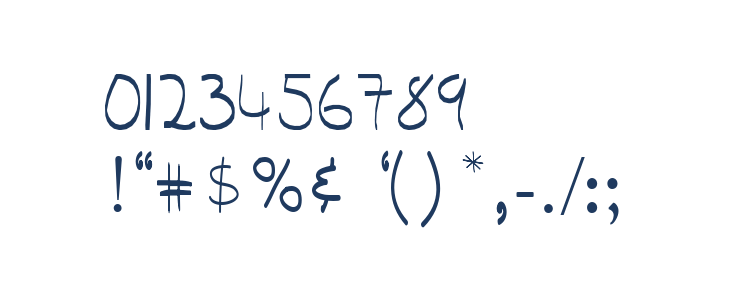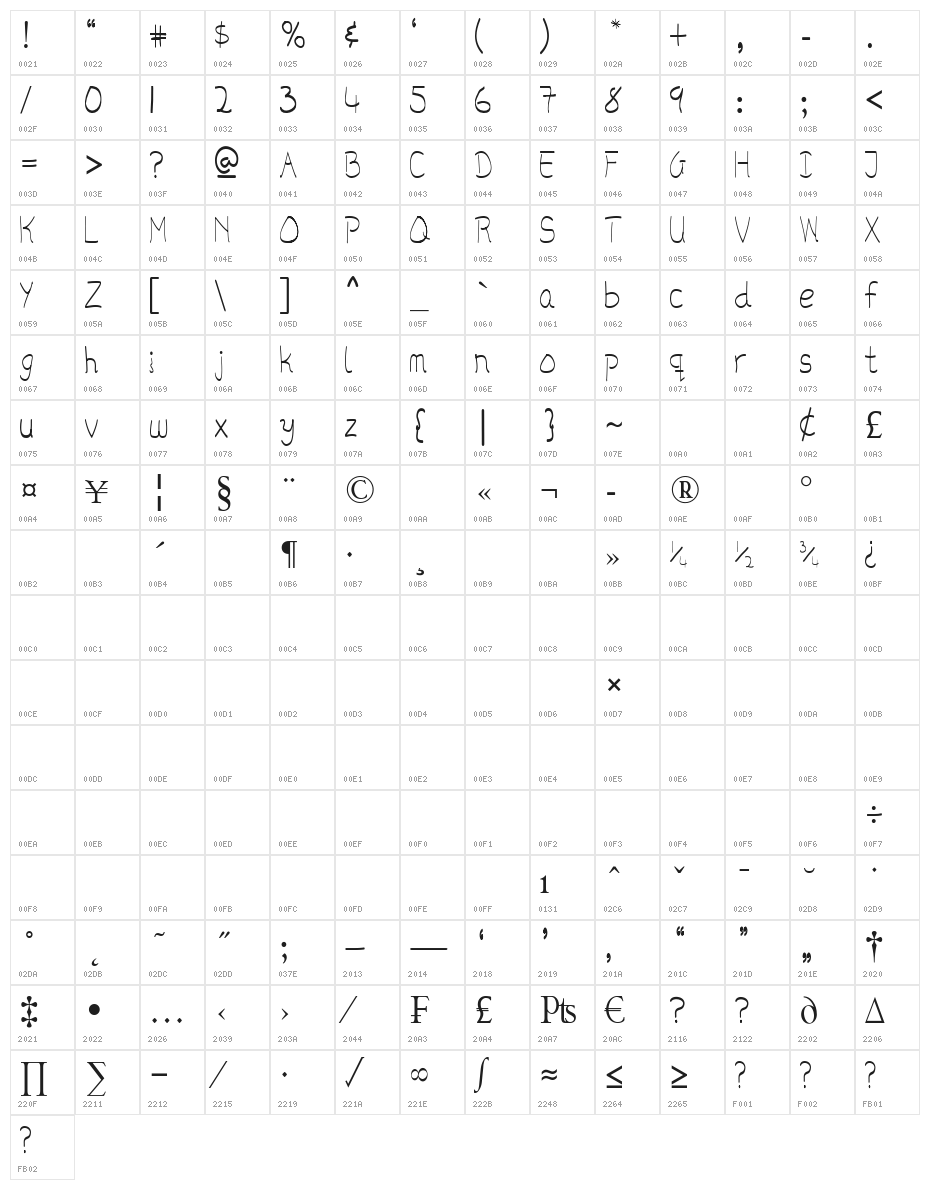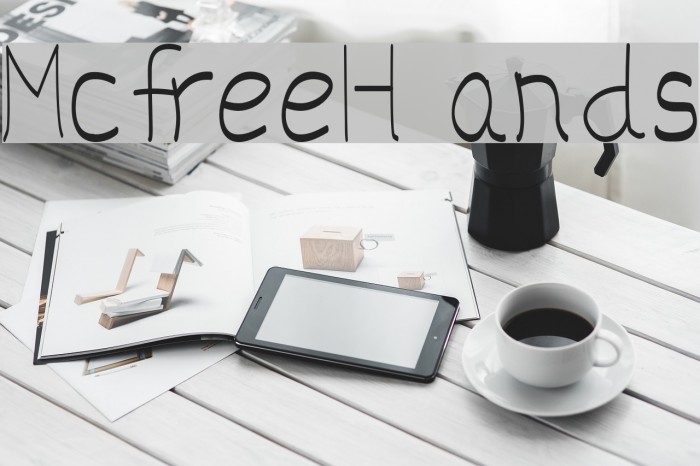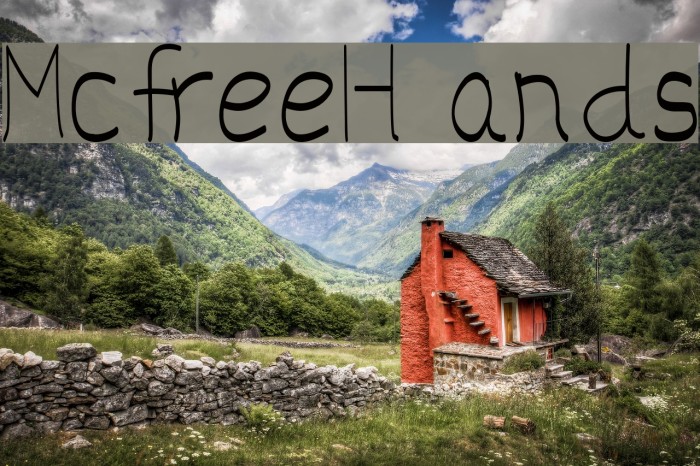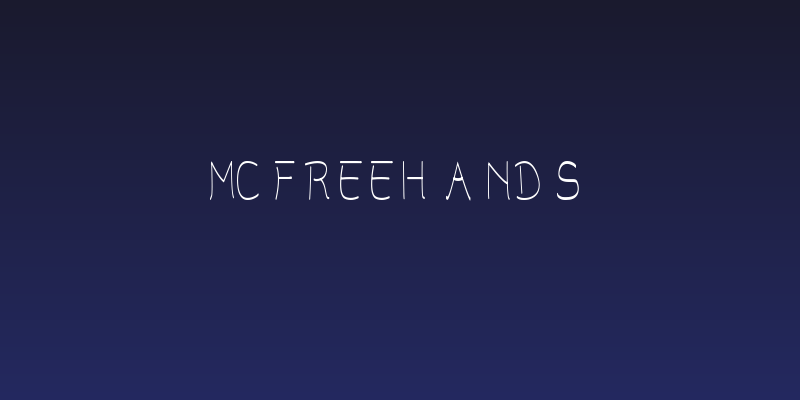
McfreeHands Font
McfreeHands Description
This font features a playful and whimsical handwritten style, characterized by its irregular strokes and casual appearance. The uppercase letters are tall and slightly narrow, with a distinct hand-drawn quality that adds a personal touch. The lowercase letters maintain a consistent style, with rounded edges and a relaxed form. Numbers are bold and slightly larger, ensuring readability. Special characters are creatively designed, adding to the font's unique charm. Overall, this font exudes a friendly and approachable vibe, making it suitable for informal and creative projects.
| Overall Style | Casual, Whimsical |
| Proposed Projects | Ideal for greeting cards, children's books, casual invitations, and creative branding. |